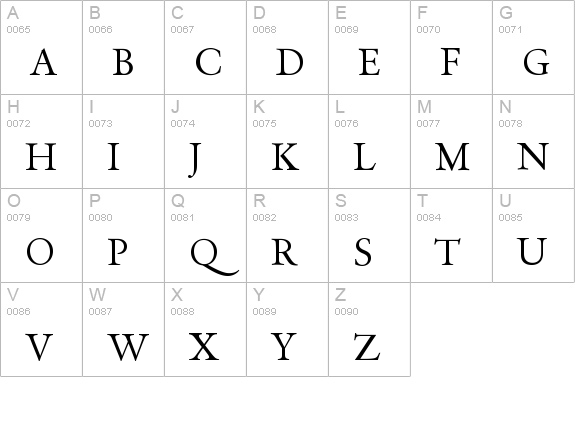
DTLVandenKeereDCaps Font Details
The DTLVandenKeereDCaps font is a stunning display typeface that exudes elegance and sophistication. With its intricate details and classic design, this font is perfect for adding a touch of luxury to your projects. The ornate capitals are beautifully crafted, making a bold statement while also maintaining a sense of refinement. What's even better is that this exquisite font is available for free download at FontsMarket.com. Whether you're looking to elevate your branding, invitations, or any other design project, the DTLVandenKeereDCaps font is sure to impress. Embrace the timeless beauty and versatility of this font and bring your creative vision to life with ease.